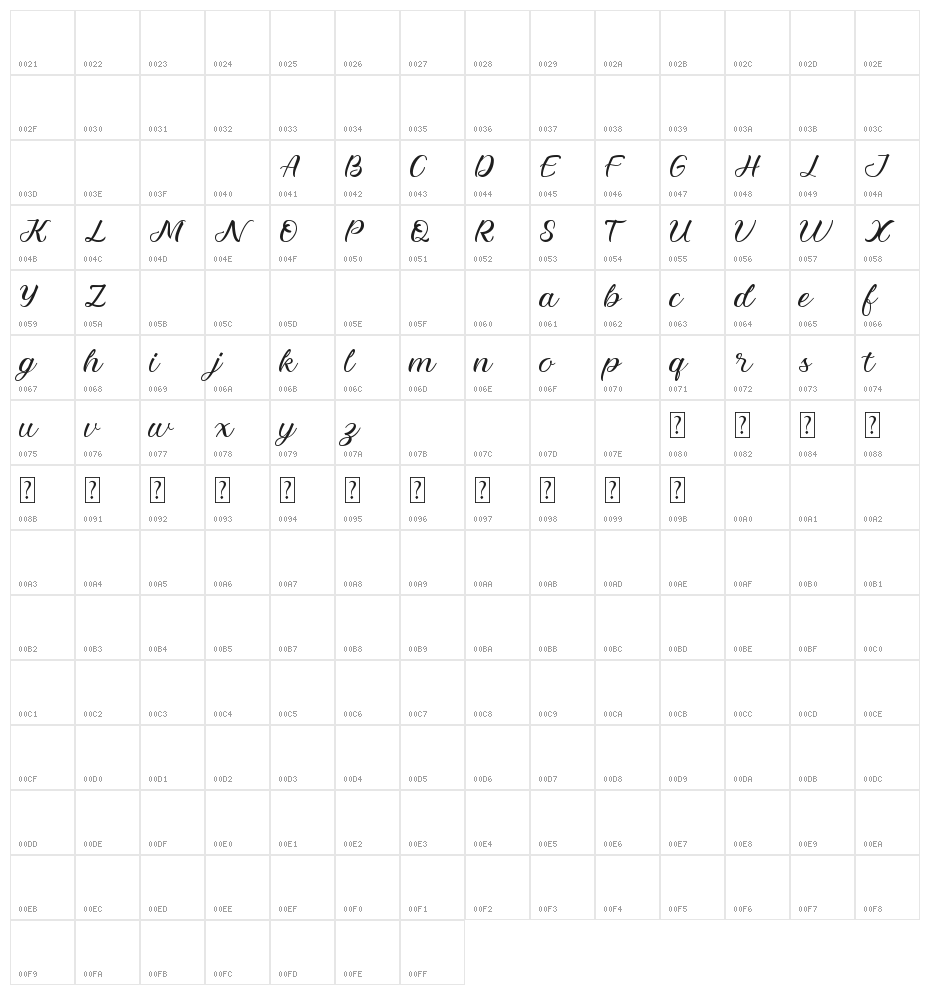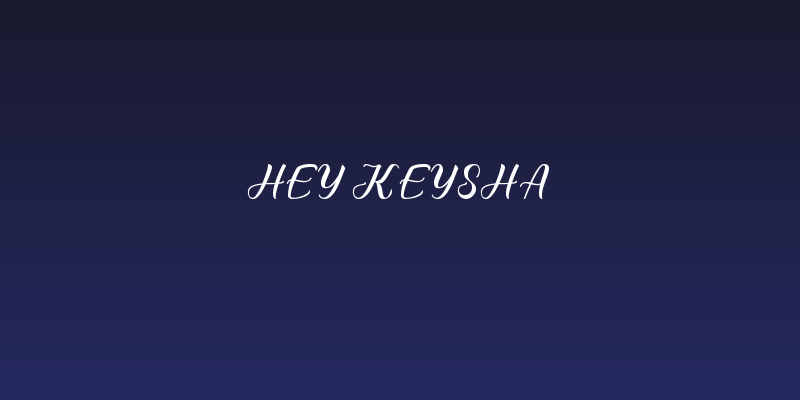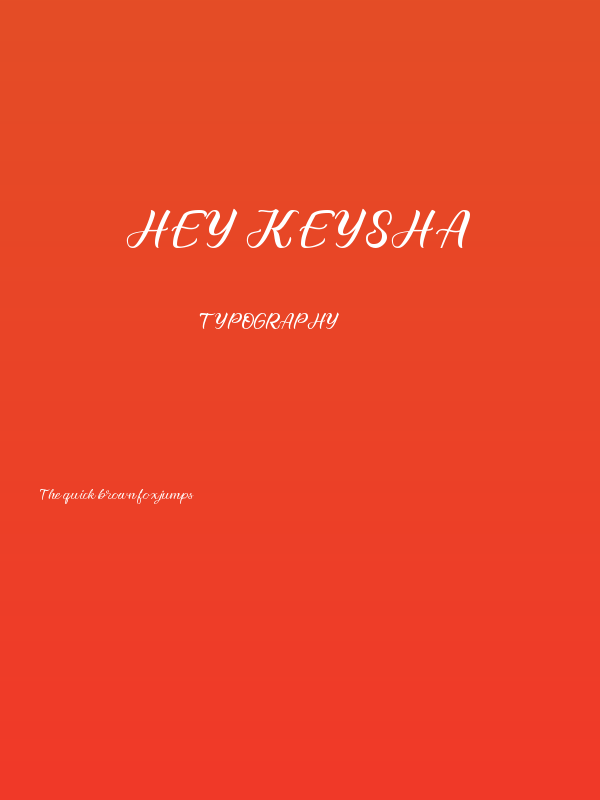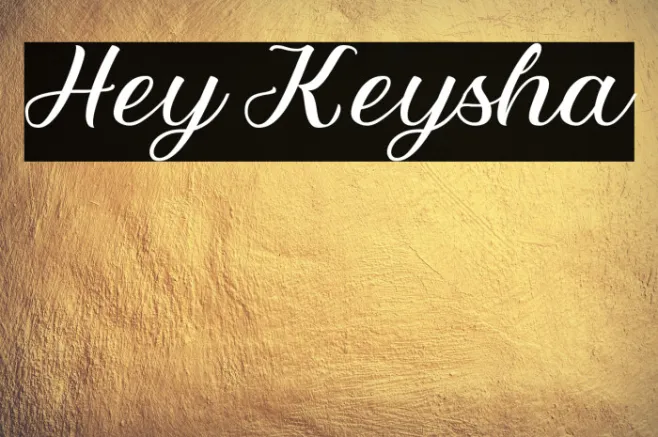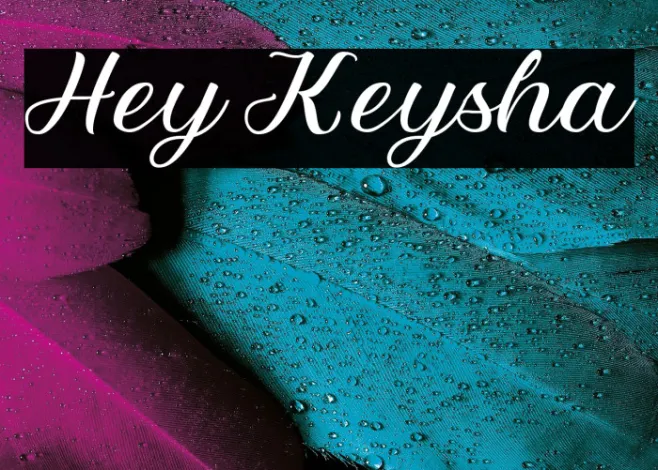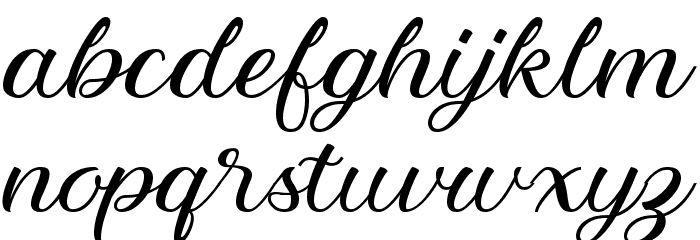
Hey Keysha Font
Hey Keysha Description
This elegant script font features fluid, cursive strokes that create a sense of sophistication and grace. The characters are interconnected, giving a seamless flow to the text. The uppercase letters are slightly more ornate, with flourishes that add a touch of flair, while the lowercase letters maintain a consistent and smooth appearance. The font's design is both classic and modern, making it versatile for various applications. Its delicate curves and balanced proportions ensure readability while maintaining an artistic aesthetic.